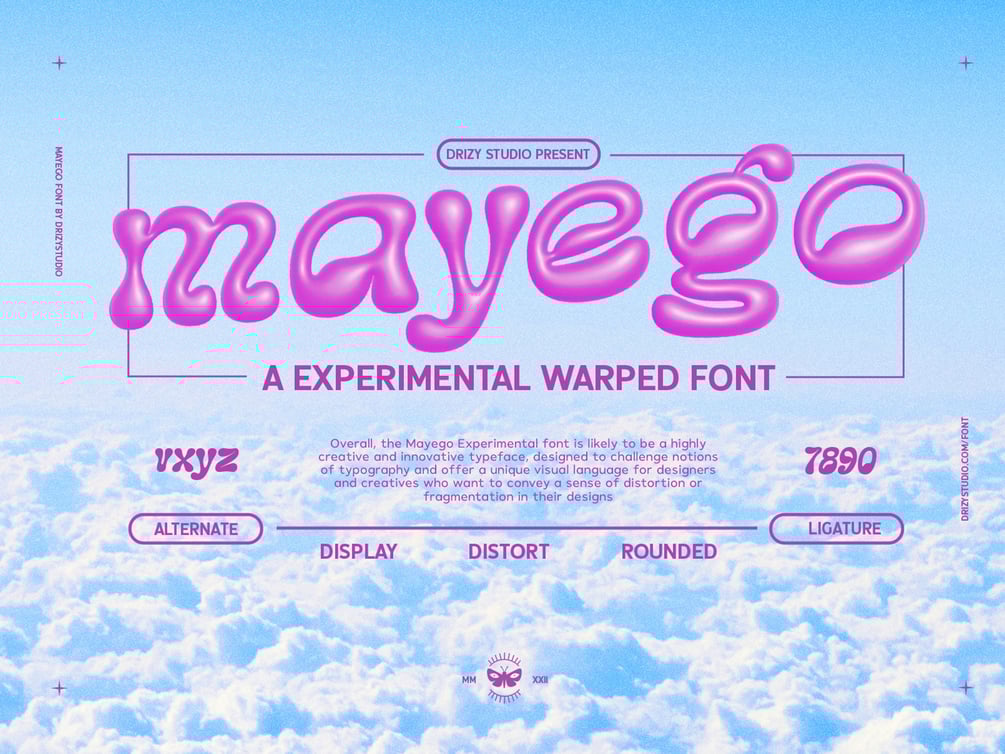
Mayego – Experimental Warped Font
Mayego – Experimental Warped Font is an irresistibly adorable font that brings a playful and whimsical charm to any project. With its fun, bouncy letterforms and delightful personality, Mayego is perfect for designs that radiate joy, creativity, and youthful energy. The organic, hand-drawn feel of Mayego makes it incredibly versatile, allowing it to blend seamlessly with colorful illustrations, cute animations, and charming typography layouts. Its rounded edges and cheerful curves create a sense of warmth and approachability, making it a fantastic choice for playful and family-friendly designs. Let your creativity shine with Mayego a font that brings smiles, imagination, and a touch of magic to every project!